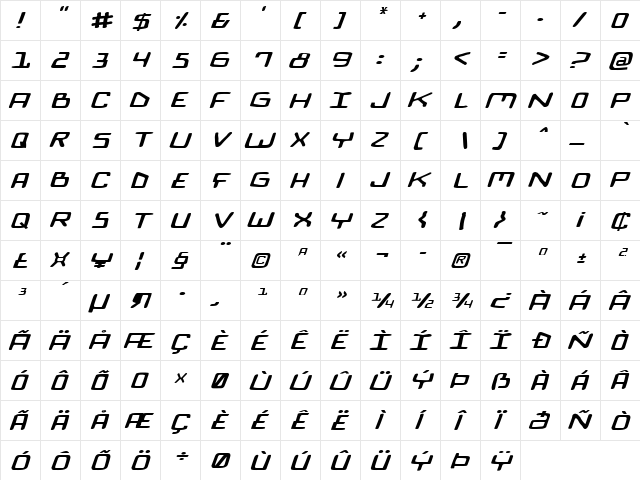
Bionic Comic Expanded Italic
Design Context for Bionic Comic Expanded Italic Typeface
Bionic Comic Expanded Italic trades formality for fun, with bouncy, characterful letterforms that bring warmth and energy to any project. The slanted form adds forward momentum and visual energy.
Font Pairing: Pairs well with a rounded or humanist sans for body copy, maintaining the friendly tone without relying on Bionic Comic Expanded Italic to carry extended reading.
Pro Tip: Avoid using Bionic Comic Expanded Italic for long passages of text — it works best for headlines, labels, and short calls to action.